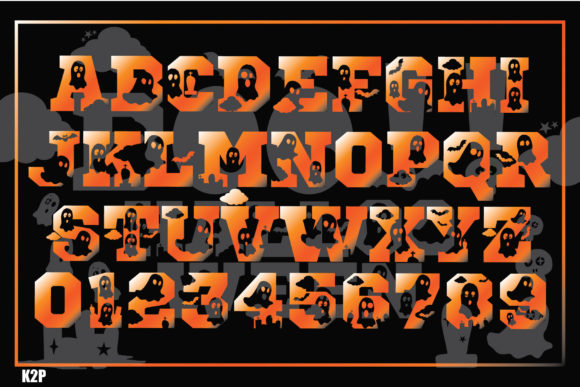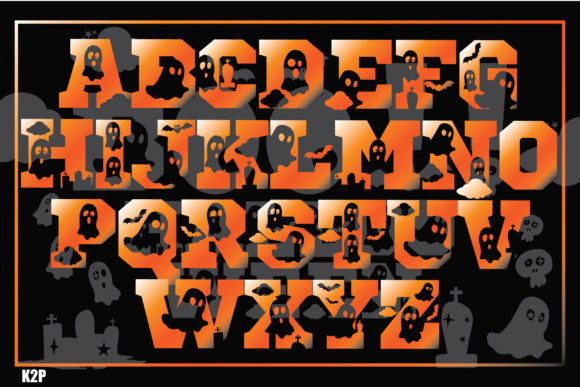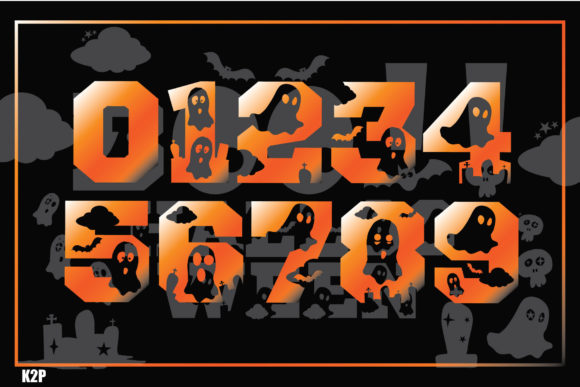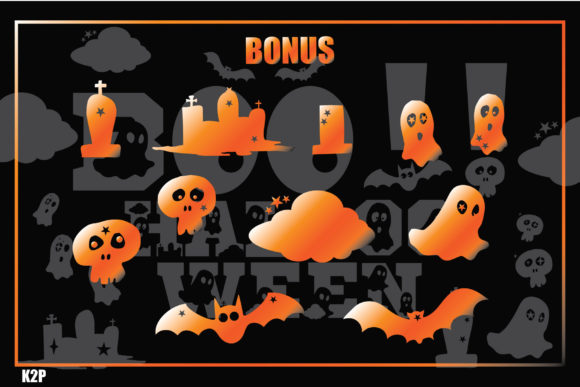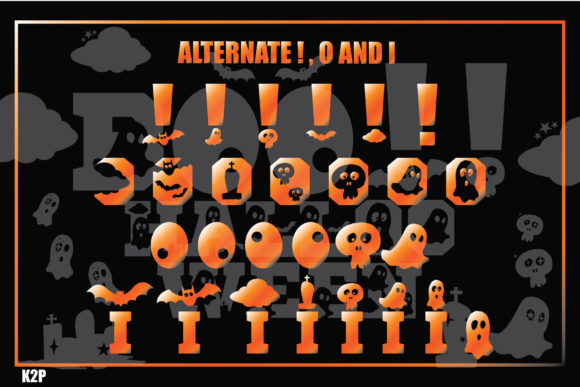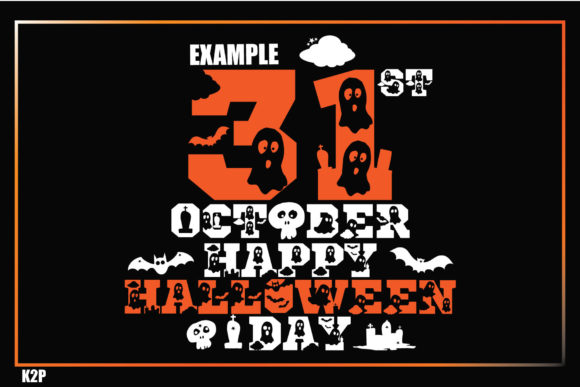
Get Ready to Cast a Spell with the Boo!! Halloween Font
As the sun sets on a crisp autumn evening, the air is filled with the sweet scent of pumpkin spice and the sound of children’s laughter. It’s the perfect time to get creative and conjure up some spooky designs that will leave a lasting impression. Whether you’re planning a haunted house party or just want to add a touch of Halloween magic to your social media posts, you need the right font to bring your ideas to life.
Enter the Boo!! Halloween Font, a thick-lettered and uniquely decorative typeface that’s sure to cast a spell on your audience. With its PUA encoding, you’ll have access to all the glyphs and swashes you need to create stunning designs that are perfect for the Halloween season. Whether you’re a seasoned designer or just a crafty enthusiast, this font is a valuable tool that will help you bring your Halloween ideas to life in a big way.
- Unique Characteristics: Distinctive Halloween-themed characters, including spooky symbols and creepy creatures, add a touch of eeriness to designs.
Designer Review: Boo!! Halloween Font
First impressions are everything, and this font delivers ✨. The Boo!! Halloween Font has a playful, whimsical feel that’s perfect for the spooky season. The characters are well-designed, with intricate details that add to the font’s charm. It’s clear that the designer had fun creating this font, and that enthusiasm shines through.
The Boo!! Halloween Font is incredibly versatile, making it suitable for a wide range of projects, from greeting cards to web design. It’s also relatively easy to use, with a clean and intuitive interface that’s a breeze to navigate.
While the Boo!! Halloween Font is a solid choice for Halloween-themed projects, it’s not without its limitations ⚠️. The font is limited to uppercase letters, which may not be ideal for projects that require a mix of uppercase and lowercase text. Additionally, the font’s design can be a bit overwhelming, which may not be suitable for all types of projects.
- Not ideal for projects requiring a mix of uppercase and lowercase text
- Design can be overwhelming for certain types of projects
Overall, the Boo!! Halloween Font is a fun and creative choice for Halloween-themed projects. While it has some limitations, it’s well-designed and easy to use, making it a great option for designers looking to add a little spooky flair to their work.
The “Boo!! Halloween Font” is perfect for creating spooky invitations, party decorations, and social media posts for Halloween. You can also use it to add a touch of whimsy to your branding and marketing materials.
To get the most out of the “Boo!! Halloween Font”, try pairing it with bold, bright colors and spooky graphics like ghosts, bats, and jack-o-lanterns. You can also use it in combination with other Halloween-themed fonts for a unique and playful look.